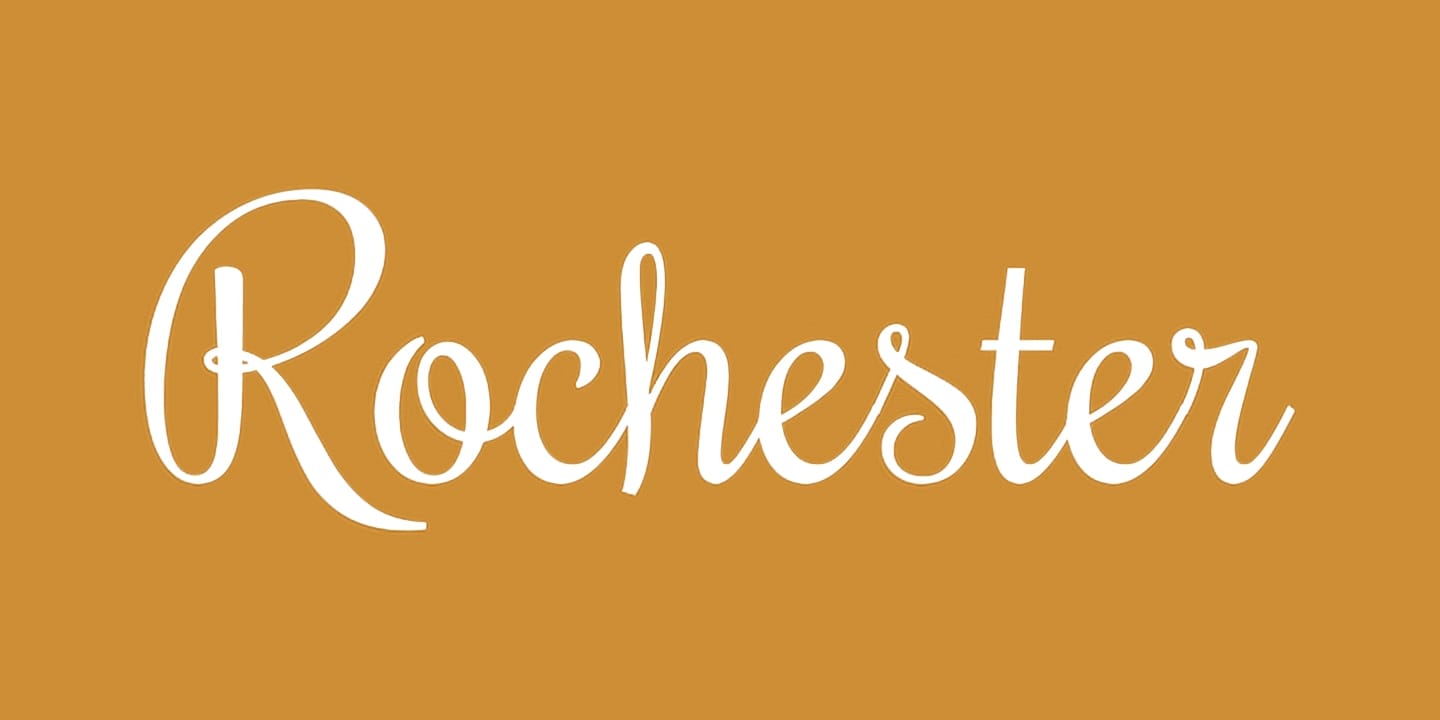
Rochester font family
Meet the latest sensation in town, Rochester! This stylish typeface brings a fresh and sophisticated touch to your design projects. With its elegant calligraphic forms inspired by the Victorian and Art Deco eras, Rochester stands out in any correspondence or memorandum.
Whether you’re crafting invitations, announcements, or professional documents, Rochester adds an air of class and formality. Its refined aesthetics make it an excellent choice for those looking to enhance the overall presentation of their work.
Designed with attention to detail, this typeface not only captures the essence of elegance but also maintains readability, making it practical for various applications. If you seek a font that combines style with functionality, Rochester should be at the top of your list.